FS Pele & Kairos Sans Font Pairing
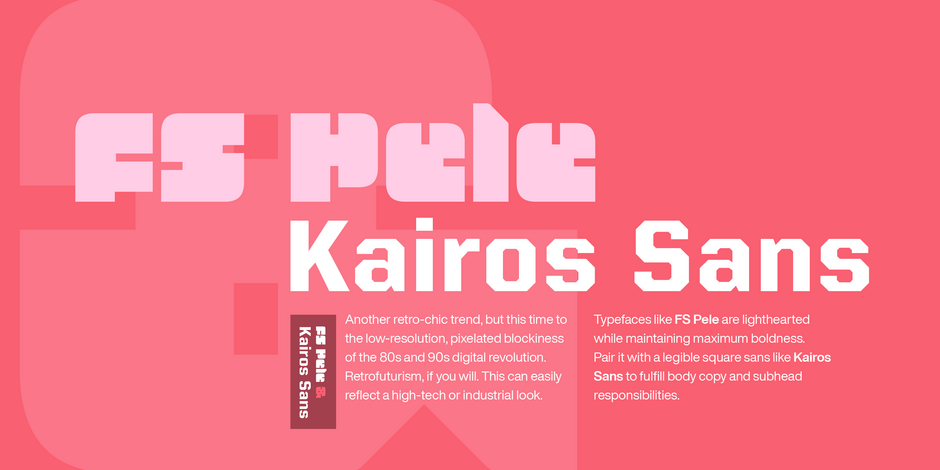
Block Craft
Pele is a champion typeface, a larger than life headline face inspired by the legendary football star. Strong and definitely unique.
Kairos Sans, designed by Terrance Weinzierl, is an octagonal sans serif influenced by 19th Century Grecians, with the weights and widths of a contemporary palette. The bold simplicity radiates in headlines and sub-heads, with suitable performance in text.